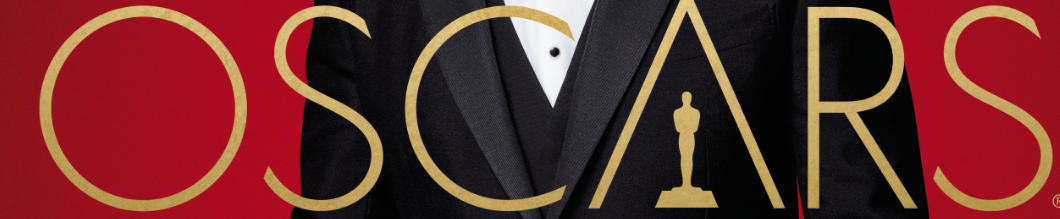
Very likely a custom logo, not a typeface. The ‘C’ overhang is unusual, as is the overshoot on the ‘A’ and top terminal on the ‘S’. Similar:
Metro Nova
Mallory
Ideal Sans
P22 Underground
Agenda
Edward